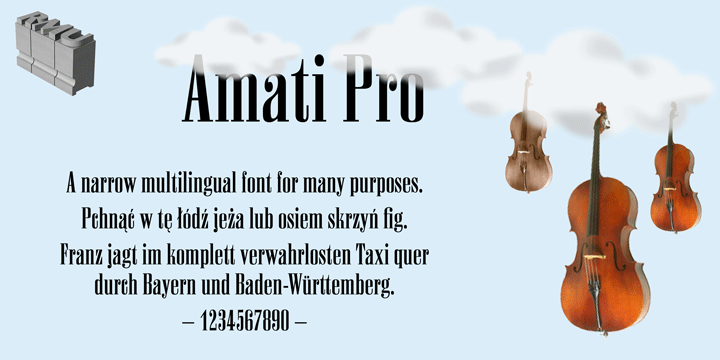
A revived and updated version of Georg Trump’s Amati which was first released by C. Weber Foundry, Stuttgart, in 1951.
A compressed multilingual serif font for many purposes.